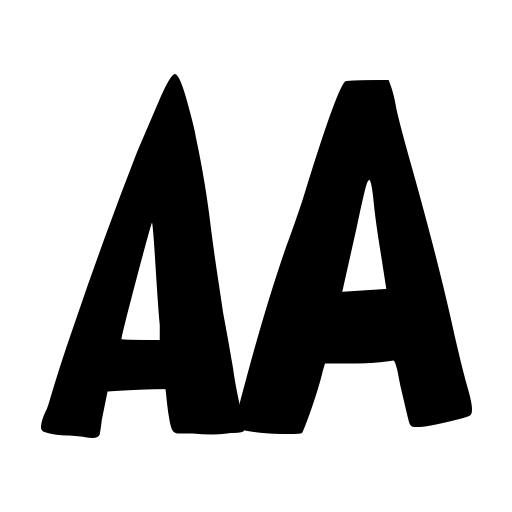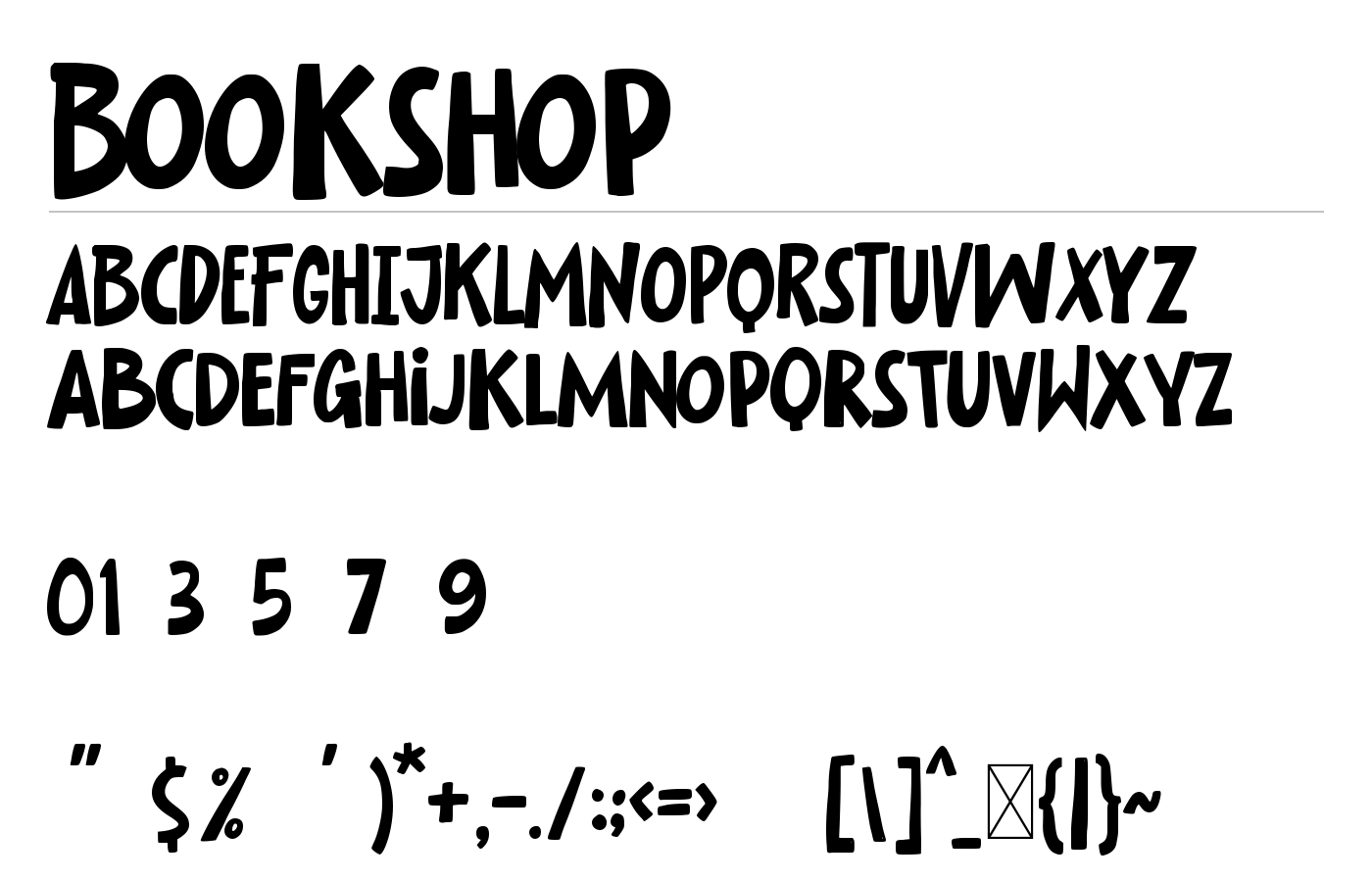
Bookshop Font is a bold, playful sans serif with a hand-drawn feel, featuring slightly irregular letterforms that evoke a casual, friendly vibe. Its tall x-height and moderate stroke contrast make it highly readable and ideal for eye-catching headlines, invitations, or branding that seeks a warm, approachable personality. This font works great for creative projects, children’s books, and informal packaging where a fun, lively touch is desired.
Bookshop Font
About Bookshop Font
| Font family | Bookshop Font |
| Designer | Anang F & Malik Wsn | Gassstype© Studio 2023 |